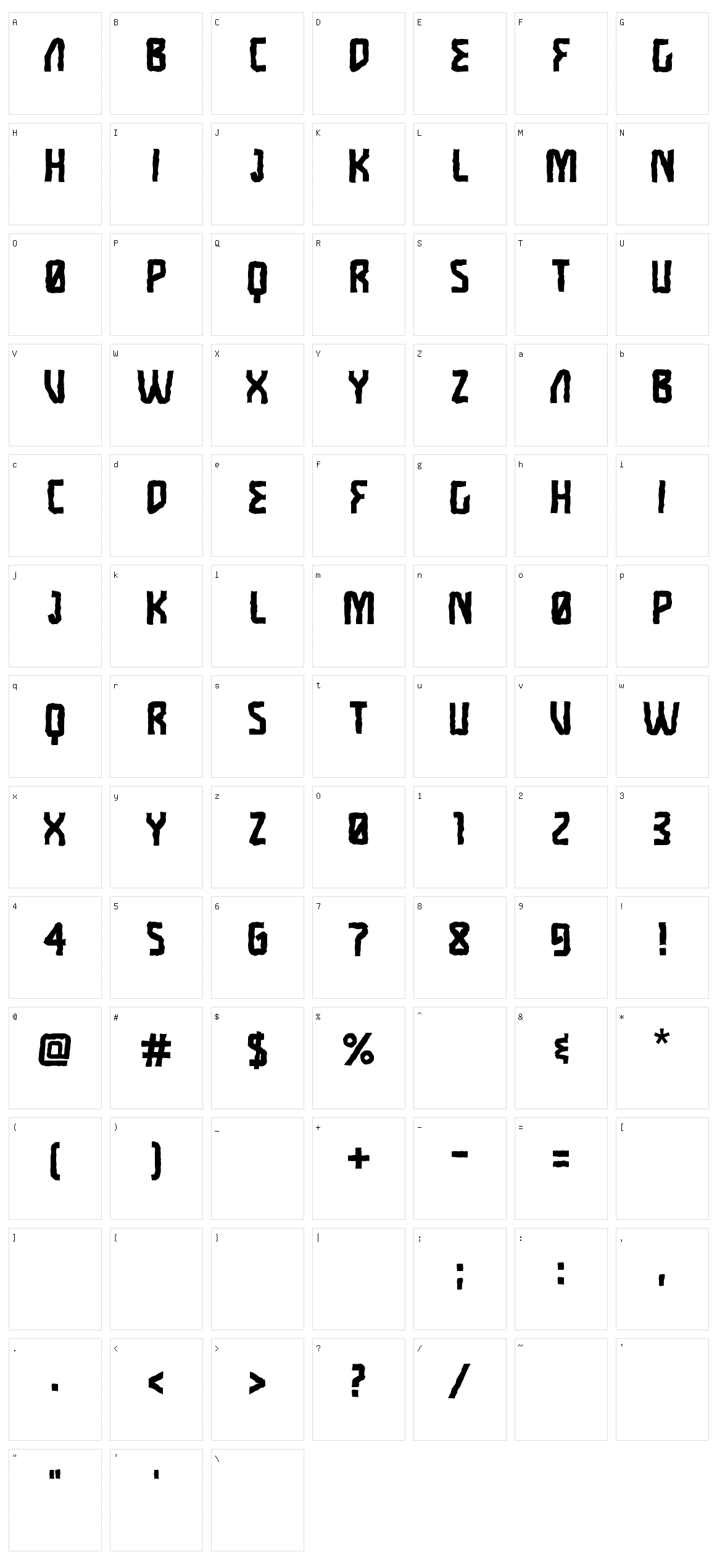
The free font Headtraffic is carefully designed by Michael Muranaka, showcasing a thoughtful balance of creativity and usability and falls under the Horror font style. When you download the ZIP file, it contains only 16.17 KB of font files, making it lightweight and quick to download. Please review the license details below to understand permitted usage and distribution rights. If license information is not available, we recommend using this font for personal projects only or contacting the author directly for commercial usage permissions.